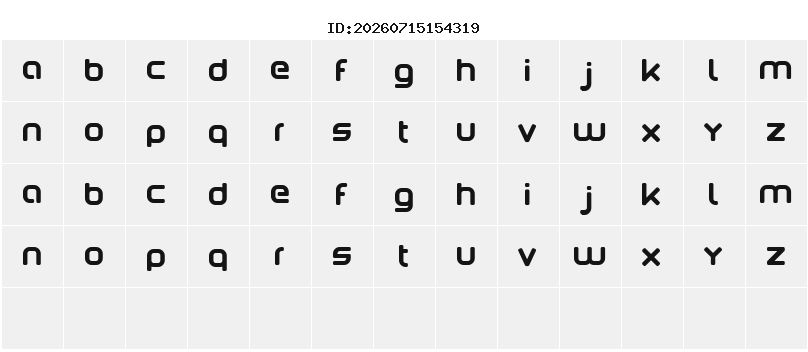
paola Preview
• Font Name: paola
• Font ID: paola:Version 1.00
• Full Font Name: abipti
• Version: Version 1.00 February 22, 2010, initial release
• PostScript Name: paola
• Character Count: 52
• Designer: Tiago Pompeu
About paola.ttf
paola.ttf is a modern, elegant sans-serif font designed for ultimate readability and visual harmony. Perfect for branding, headlines, web design, and print materials.